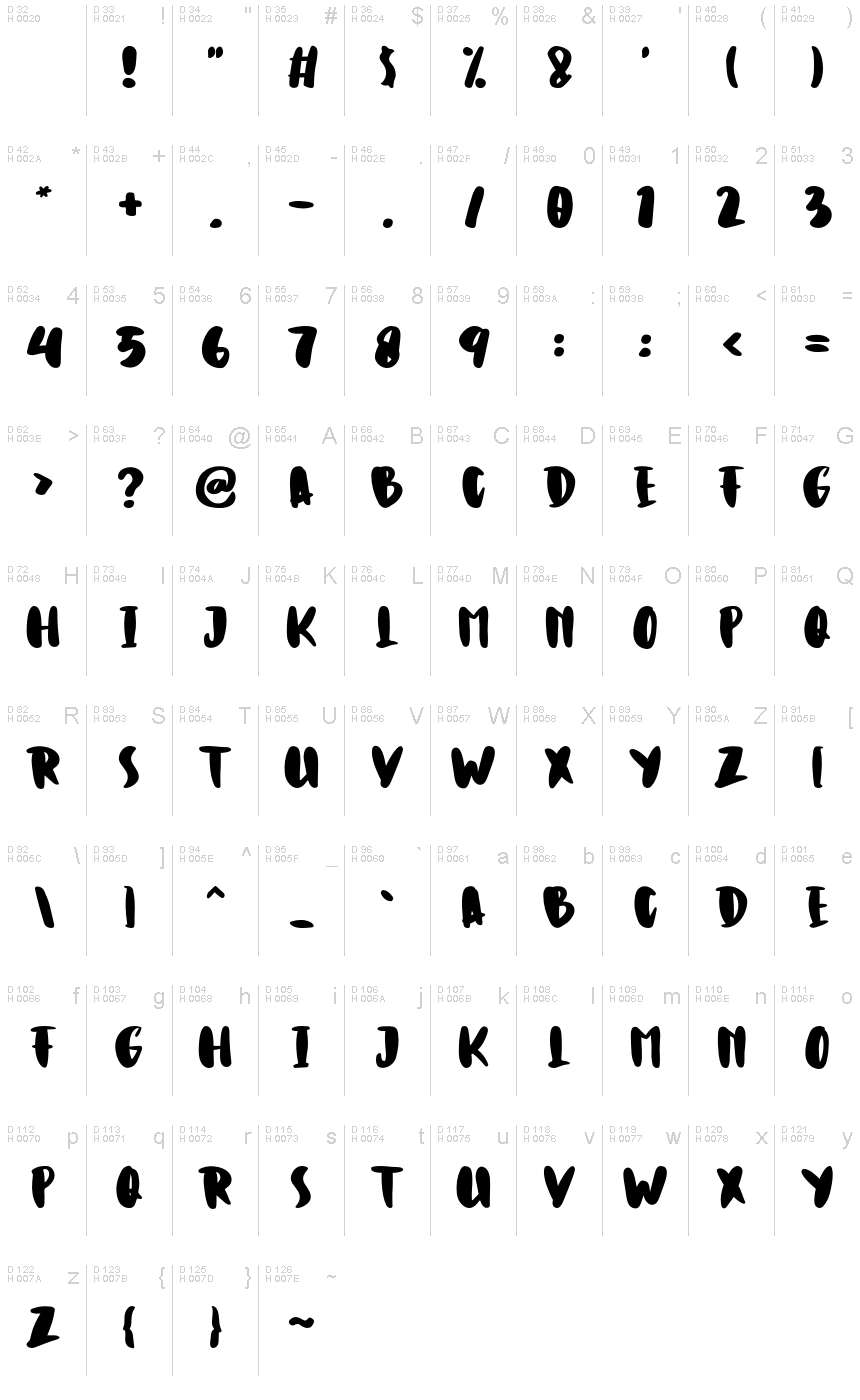
CookiesSweet-Regular
Cookies Sweet by Typetemp Studio is a playful and robust display font that exudes charm with its cartoon style. Its bold, friendly curves and condensed form make it a delightful choice for capturing attention and injecting personality into any project. The font's whimsical nature is perfect for designs that aim to be approachable and fun.
Ideal for creative projects needing a touch of whimsy, Cookies Sweet shines in contexts like children’s books, playful branding, casual game interfaces, and party invitations where its engaging character can truly delight audiences of all ages. This font's cheerful demeanor ensures that messages are not just read but felt with a smile.